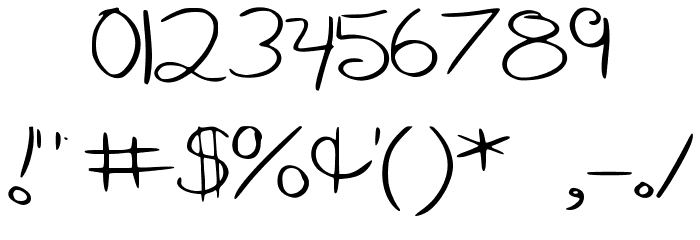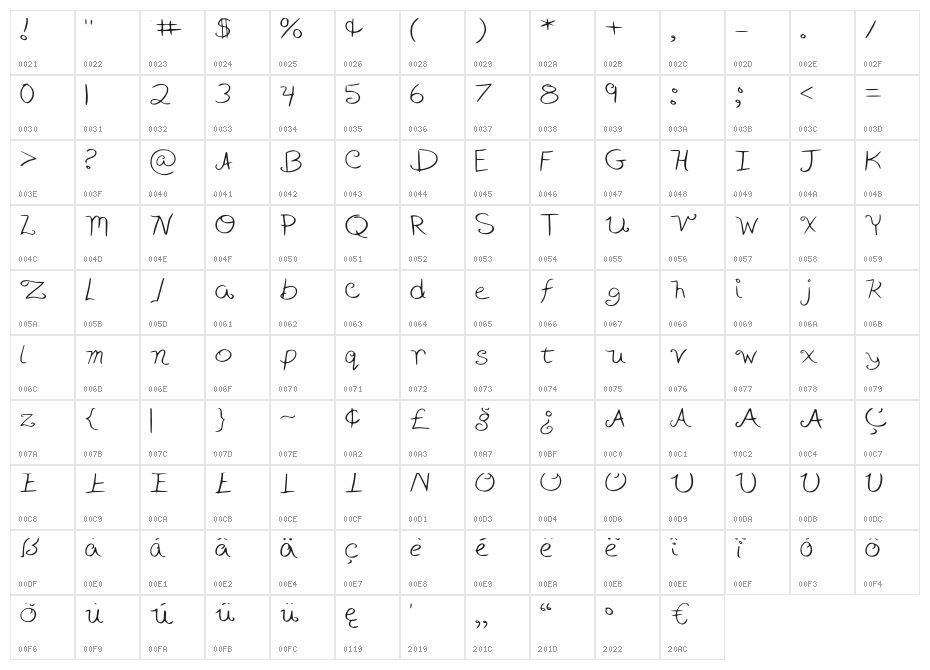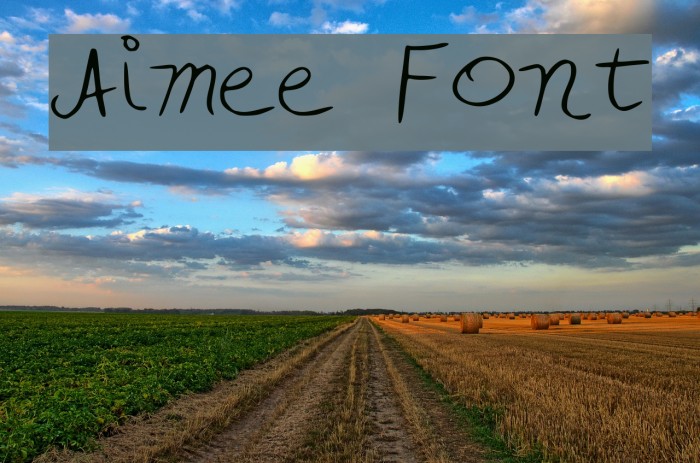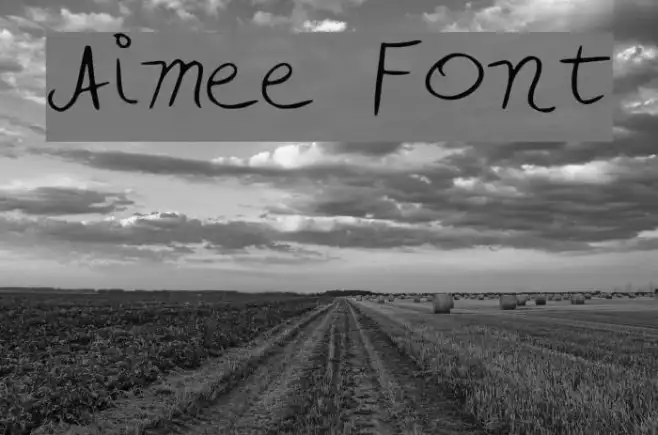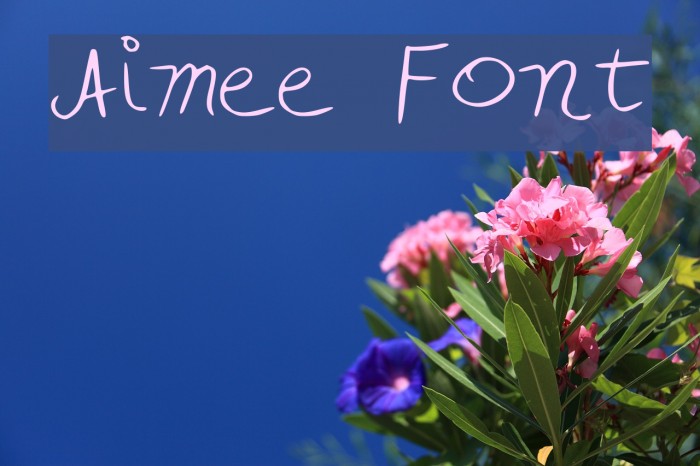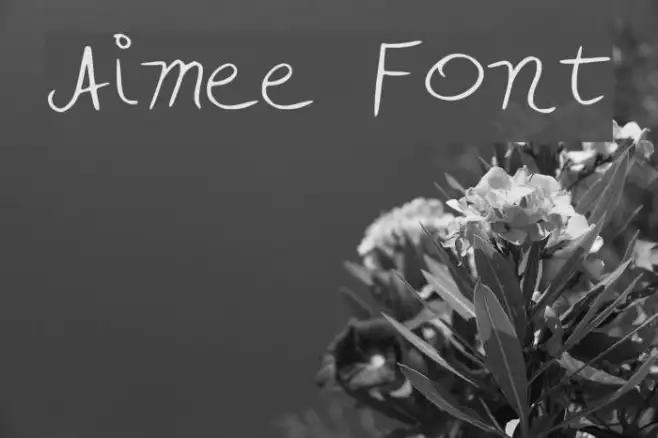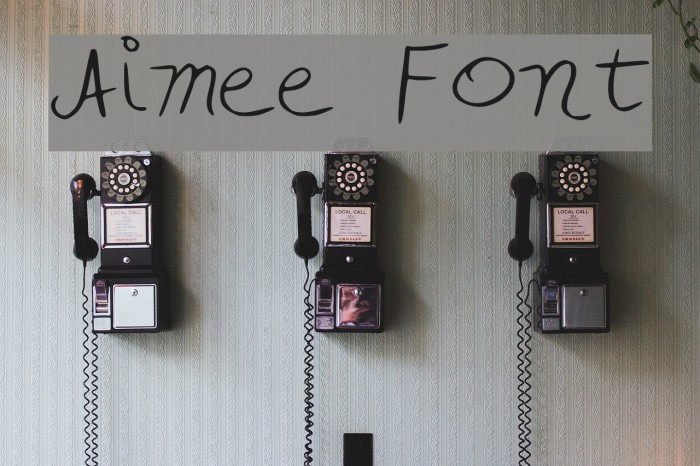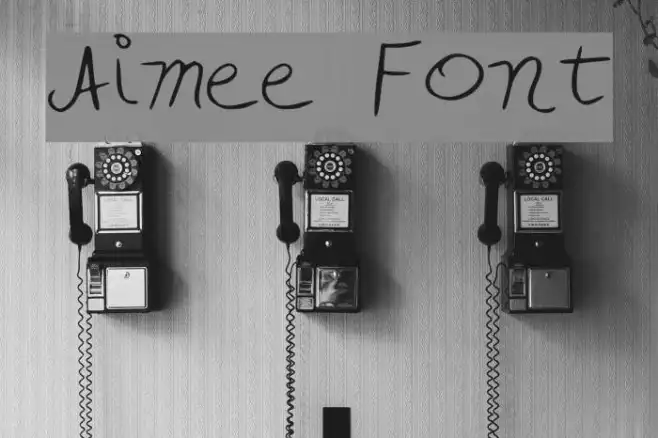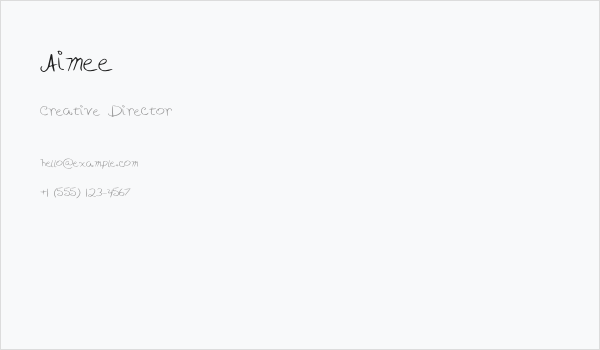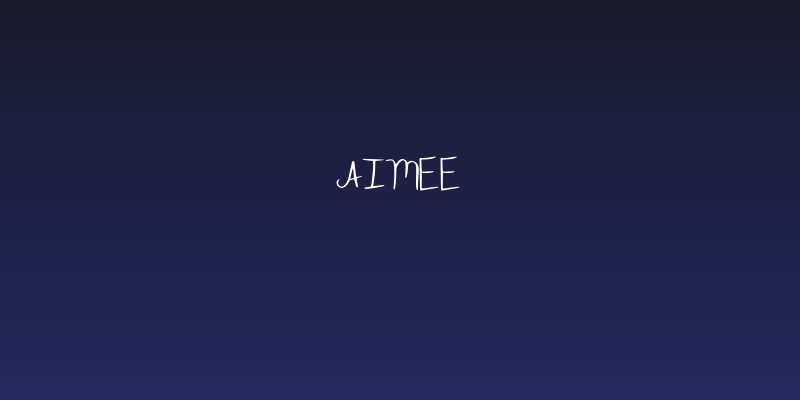
Aimee Font
Aimee Description
This font exhibits a playful and whimsical handwritten style, characterized by its fluid and dynamic strokes. The letters are slightly slanted, giving a casual and informal appearance. The uppercase and lowercase letters maintain a consistent style, with rounded edges and a smooth flow. The numerals and special characters are designed to match the overall aesthetic, ensuring a cohesive look across all text elements. This font's unique charm makes it suitable for projects that require a personal and approachable touch.
| Overall Style | Casual and playful |
| Use Case | Headlines, Invitations, Creative projects |
| Proposed Projects | Ideal for greeting cards, invitations, children's books, and creative branding projects. |